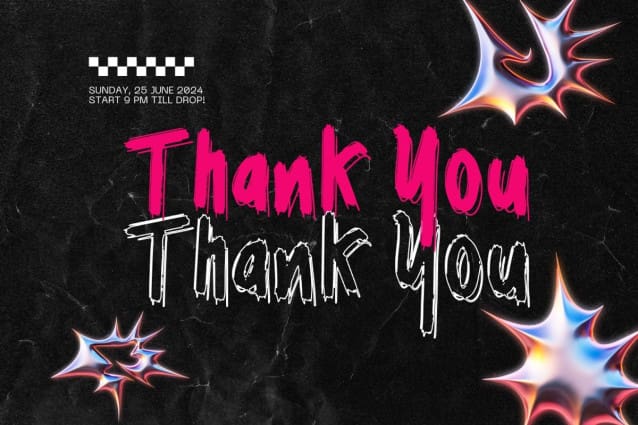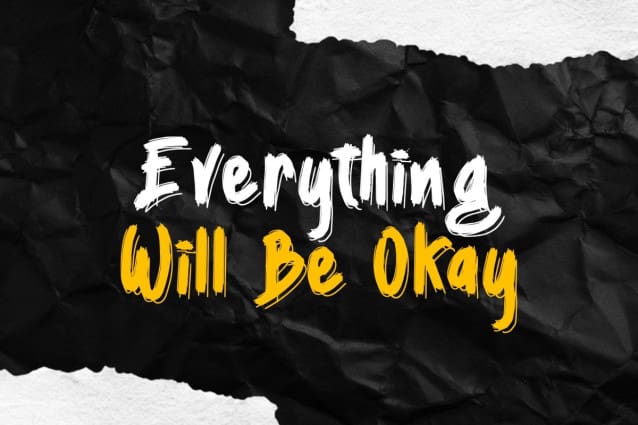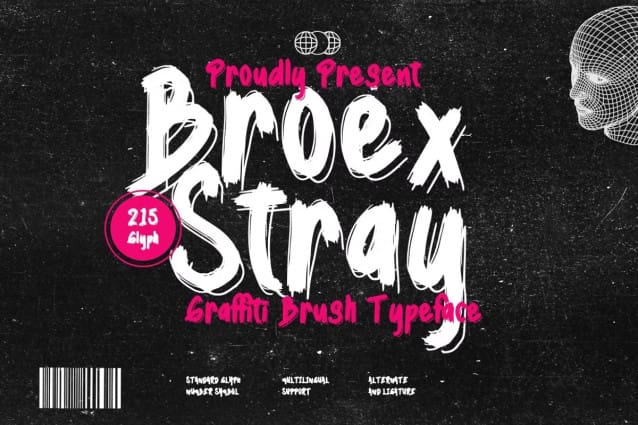
Broex Stray Font
Broex Stray Font is a brush graffiti font characterized by its monoline style. Brush graffiti fonts typically emulate the look of hand-painted lettering created with brush strokes, resulting in a raw and expressive aesthetic. The monoline style maintains consistent stroke thickness throughout the characters, giving the font a uniform and cohesive appearance.